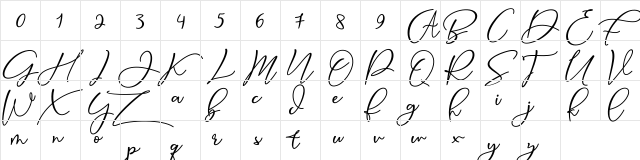
Animal Script Regular
| Designer | Moly Mol |
Design Context for Animal Script Typeface
Animal Script flows with the natural rhythm of handwritten lettering, making it ideal for designs that call for warmth and personal expression.
Font Pairing: Combine Animal Script with a simple geometric sans for maximum contrast — the tension between flowing curves and clean structure is a classic typographic pairing.
Pro Tip: Use Animal Script for short runs of text — names, titles, or taglines. Extended body copy in script faces tires the eye quickly.